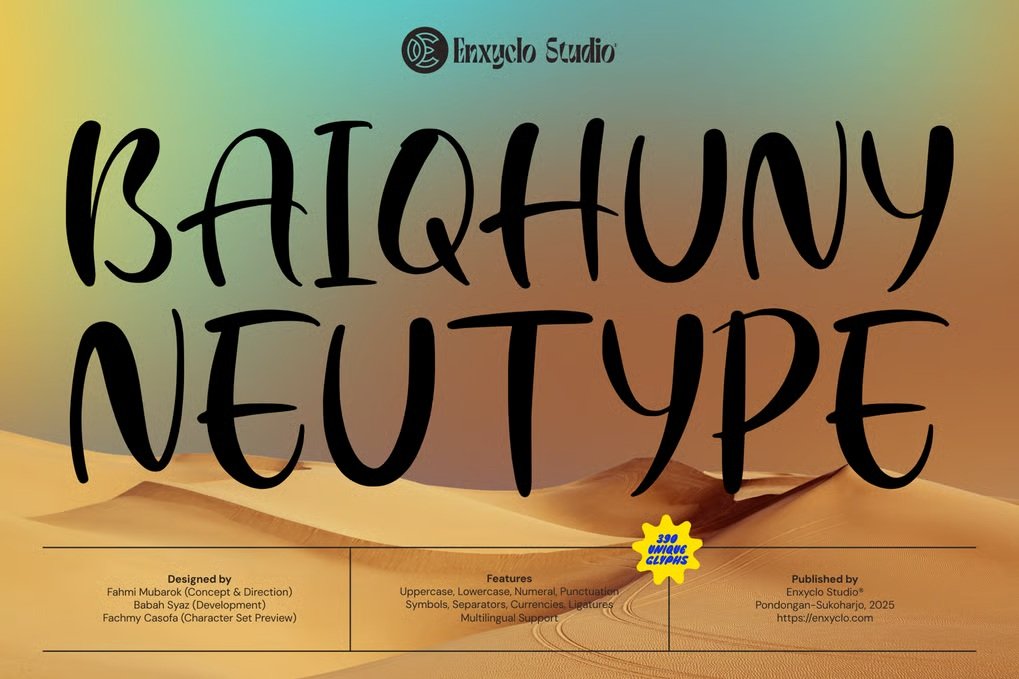
Baiqhuny – Modern Handwritten Logo Font
Elevate your creative projects with Baiqhuny, a bold and dynamic handwritten typeface designed to bring personality and energy to your designs. Crafted by Enxyclo Studio, this font features unique strokes and expressive letterforms that balance between casual and artistic style, perfect for making your text stand out with charm and character.
Complete set including uppercase, lowercase, numerals, punctuation, symbols, separators, currencies, and ligatures
Contains 390 unique glyphs for extensive multilingual support
Expressive brush-style strokes that add a dynamic and vibrant touch
Well-balanced letterforms optimized for readability and creative flair
Suitable for both print and digital design projects
Perfect For:
Branding and logo design that require an expressive, handcrafted look
Invitations, greeting cards, and personal stationery for a warm, artistic feel
Social media graphics, posters, and flyers that aim to grab attention
Packaging design, especially for creative and lifestyle products
Headlines and display text in websites, blogs, and editorial layouts that want personality and uniqueness